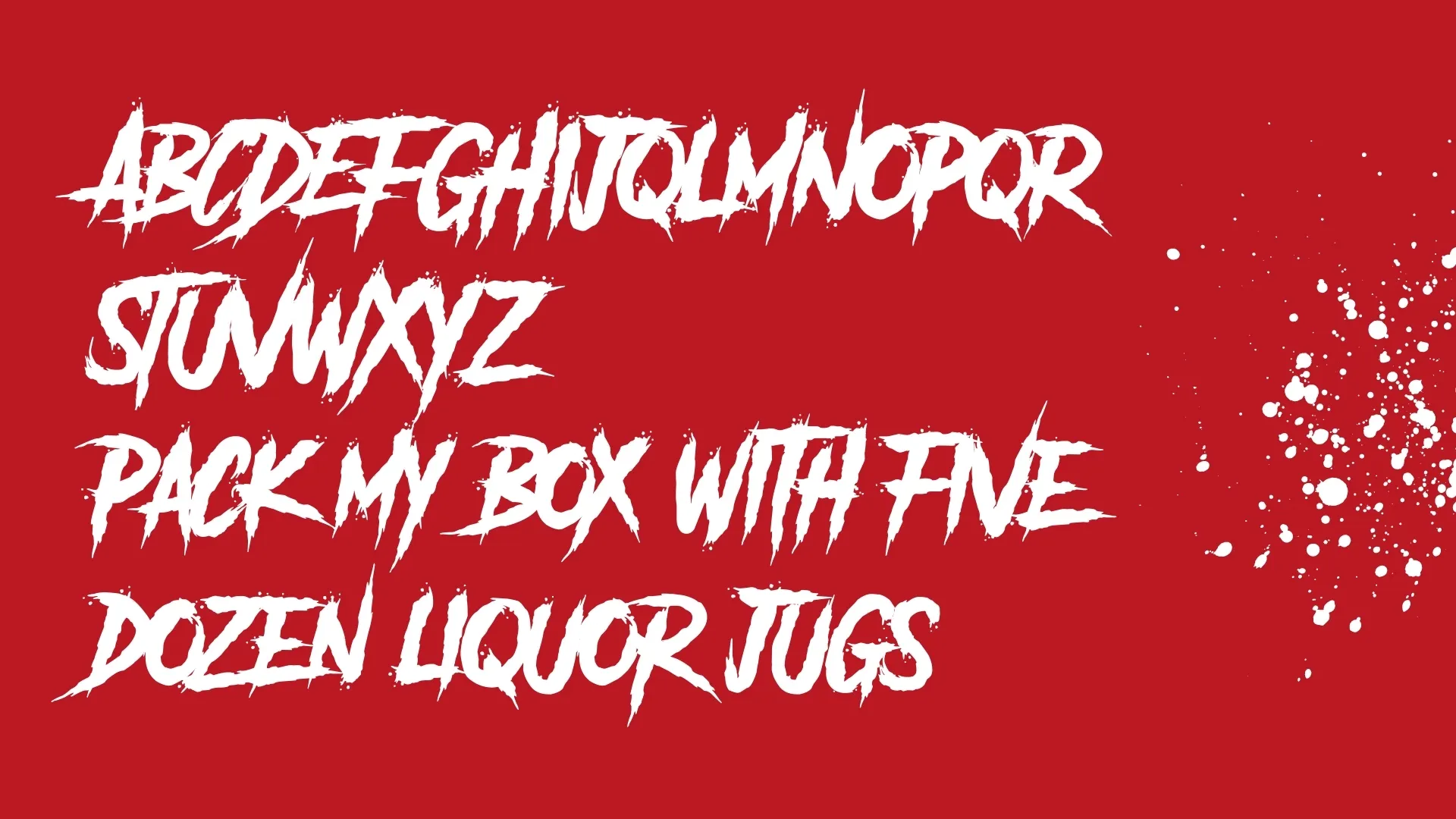
Many designers are looking for a typeface that has a unique, bold, and fancy font appearance for designing purposes. So, today we are introducing a new font style that has a bold, creative, and unique texture appearance named Another Danger Font. This typeface is perfect to utilize for designing purposes. This font style is also utilizing in the various designing platforms. This typeface can make your designs attractive and playful. This textured style is also utilizing for creating amazing designs in Canva, a graphic design software.
This font style has also been used with CSS (Cascading Style Sheets) and Adobe Photoshop to create various designs. This font type is also used to create posters, banners, T-shirt designs, Pana flex, birthday cards, invitation cards, and shop names, among other things. This imaginative and bold texture style is also used in magazine design, signposting, and brand labeling, among other things. This font design is also being used by Youtubers to create thumbnails for their channels that capture consumers’ attention.
This font style is very well-known for its ability to copy and paste. This typeface also includes some fonts with the most similar font texture style that corresponds to the characters in this typeface. However, Saldina Font, in our opinion, has the most parallels to this font type. As a result, this typeface can be used in place of Saldina Font. There’s also a font maker available online. As a result, without having to download and install the font on your computer or other devices, you may use this tool to create designs online. This typeface is available in OTF and TTF file formats.
Designer of Another Danger Font
This amazing and creative font style has been created by The Branded Quotes. They have also created many of the famous and creative typefaces that are quite popular all over the globe.
This typeface texture is created with a family of its own. Each style in this family features capital letters, small letters, glyphs, punctuation, numerals, symbols, and special characters, as well as language support. These styles are as follows.
- Another Danger Regular
- Another Danger SemiBold
View of Another Danger Font
| Name | Another Danger Font |
| Style | Brush |
| Designer | The Branded Quotes |
It can support up to 79 languages.
What font is closest to Another Danger Font?
Saldina Font, in our opinion, has the most parallels to this font type. As a result, this typeface can be used in place of Saldina Font.
Is Another Danger Font a professional?
This typeface has a creative and fancy font appearance. So, this typeface is not appropriate for Professional designs and projects.